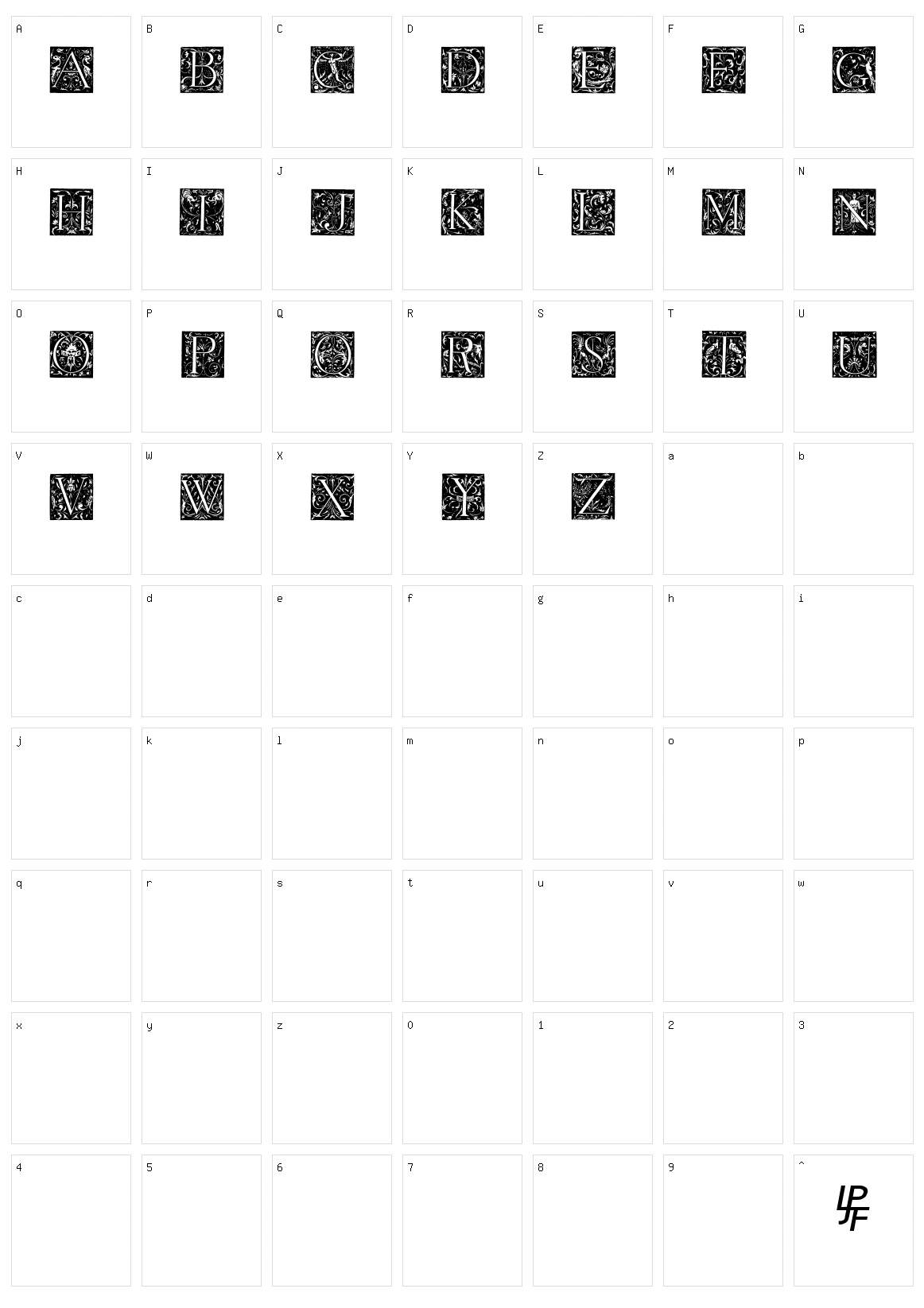
Grimswade
Yet another set of Intials. This primitive set of woodcuts seems
to me to have a certain dark charm. Would go well with a nice simple
Roman face.
I wonder what some of the interesting creatures lurking amongst
the capitals are?